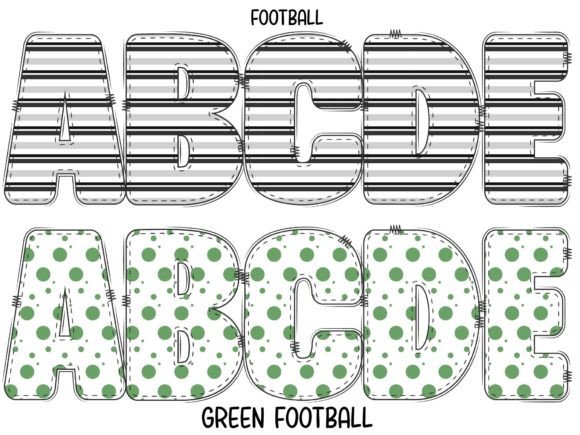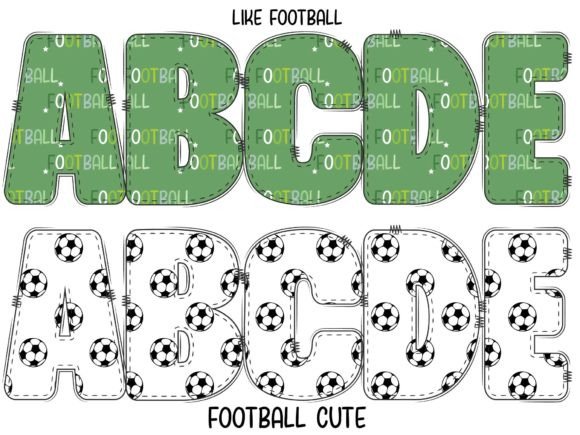
Introducing Football Font: Elevate Your Sports Designs with a Cool and Unique Style
Are you a designer or crafter looking for a font that can add a touch of excitement and energy to your sports-related designs? Look no further than the Football Font, a cool and unique color font that’s perfect for creating stunning visual projects. In this article, we’ll explore the features and benefits of Football Font, and show you how to make the most of its endless possibilities.
What is Football Font?
Football Font is a specially designed color font that captures the spirit of the beautiful game. With its bold and dynamic style, this font is ideal for creating eye-catching designs that are sure to stand out. Whether you’re working on a project for a sports team, a fitness brand, or a sports equipment company, Football Font is the perfect choice.
Key Features of Football Font
- Color Font (Opentype-SVG): Football Font is a cutting-edge color font that uses the Opentype-SVG format, allowing for vibrant and detailed designs.
With Football Font, the creative possibilities are endless. Here are just a few ideas to get you started:
- Sports Team Logos: Create custom logos for sports teams, leagues, or tournaments using Football Font.
- Fitness and Sports Branding: Use Football Font to create bold and eye-catching branding materials for fitness studios, sports equipment companies, or health food stores.
- Event Promotions: Design exciting promotional materials for sports events, such as flyers, posters, or social media graphics.
- Mercandise: Create custom merchandise, such as t-shirts, hats, or water bottles, with Football Font.
- Experiment with Colors: Take advantage of the color font format by experimenting with different color combinations and gradients.
- Play with Typography: Use Football Font in combination with other fonts to create visually interesting typography.
- Keep it Simple: Don’t be afraid to keep your design simple and bold, using Football Font as the focal point.
In conclusion, Football Font is a cool and unique color font that’s perfect for designers and crafters looking to add a touch of excitement to their sports-related designs. With its bold and dynamic style, compatibility with popular design software, and endless creative possibilities, Football Font is a must-have for any sports enthusiast or designer.